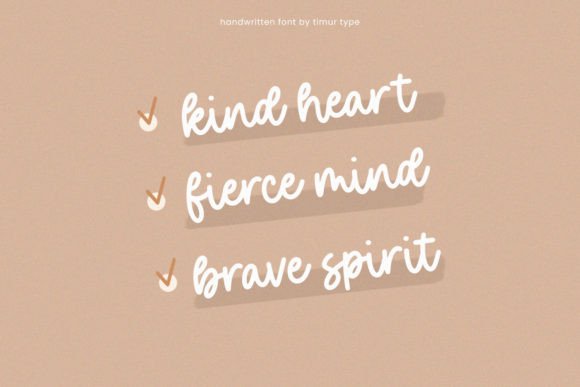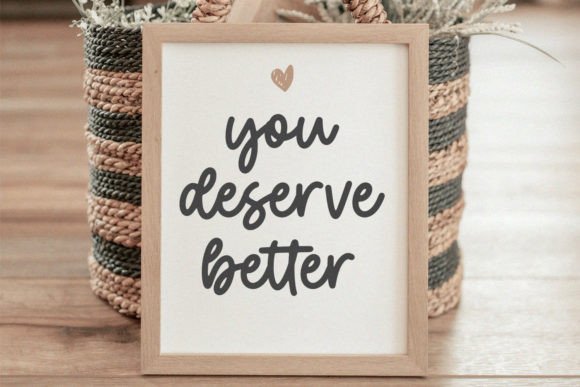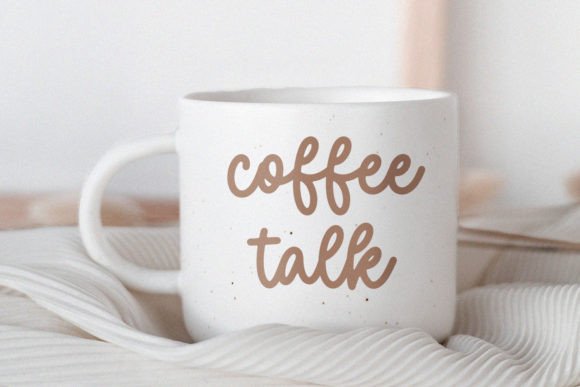
Introduction to Golfmind Font
Golfmind is a handwritten font created with great care and specially created for you 😊 Golfmind is perfect for product packaging, branding project, magazines, social media, weddings, or just used to express words above the background.
Key Features of Golfmind Font
Why Choose Golfmind Font?
Golfmind Font offers exceptional quality and versatility, making it a valuable addition to your design toolkit. Whether you’re creating for personal projects or commercial use, Golfmind Font delivers professional results.